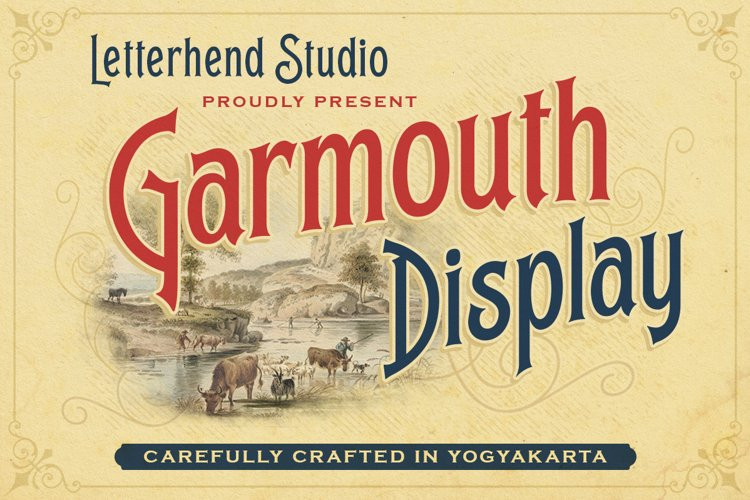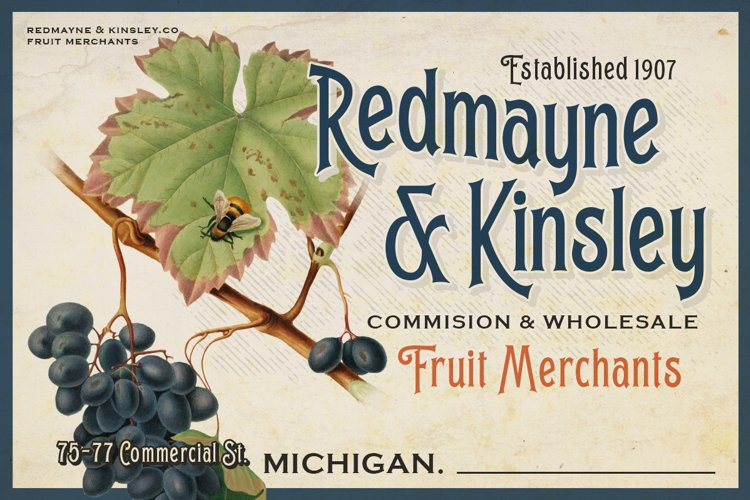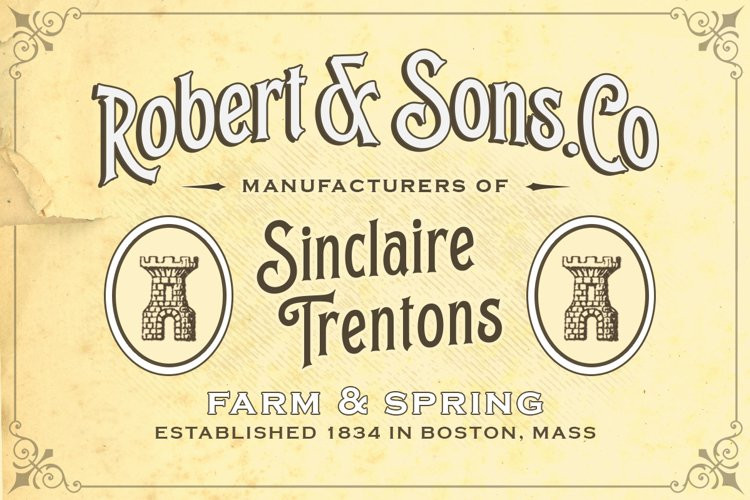
Garmouth Display Font
Introducing our latest display typeface named Garmouth Display. A unique serif with classy and classic look with vintage feel, inspired by 60s and 70s signages. This font perfectly made to be applied especially in logo, and the other various formal forms such as invitations, labels, logos, magazines, books, greeting / wedding cards, packaging, fashion, make up, stationery, novels, labels or any type of advertising purpose.